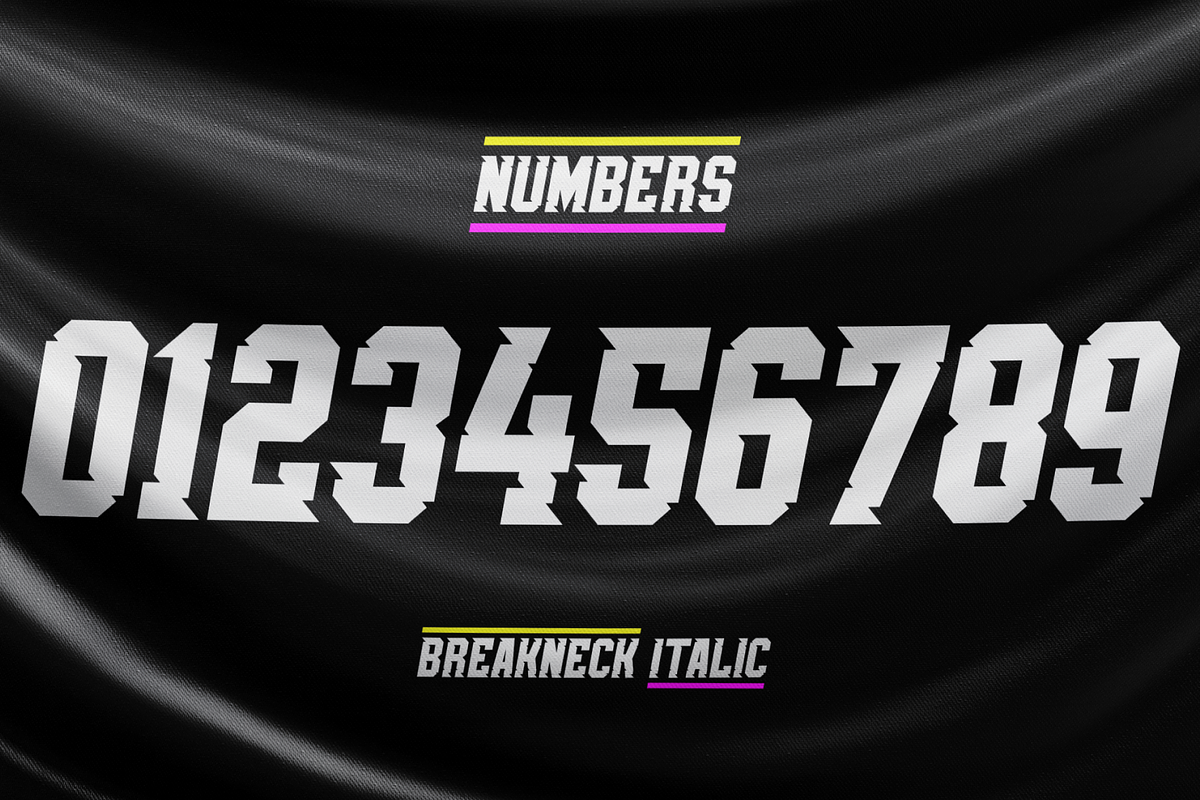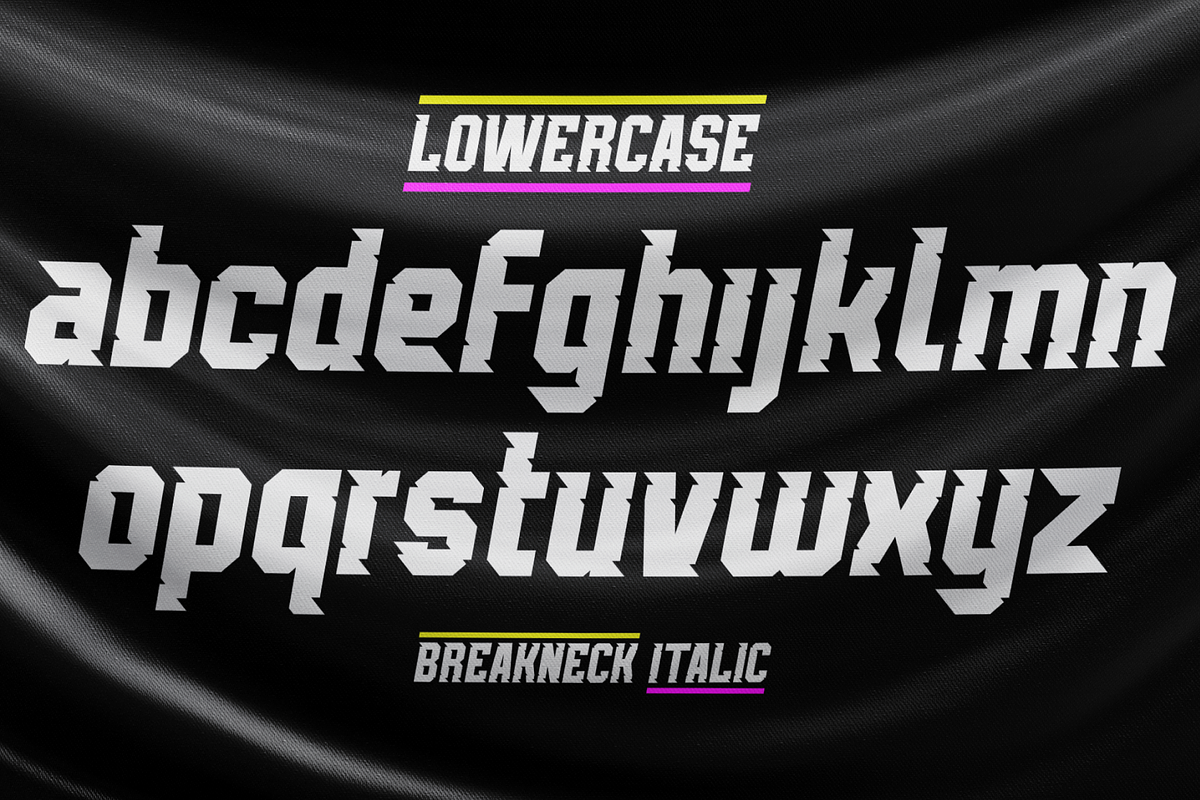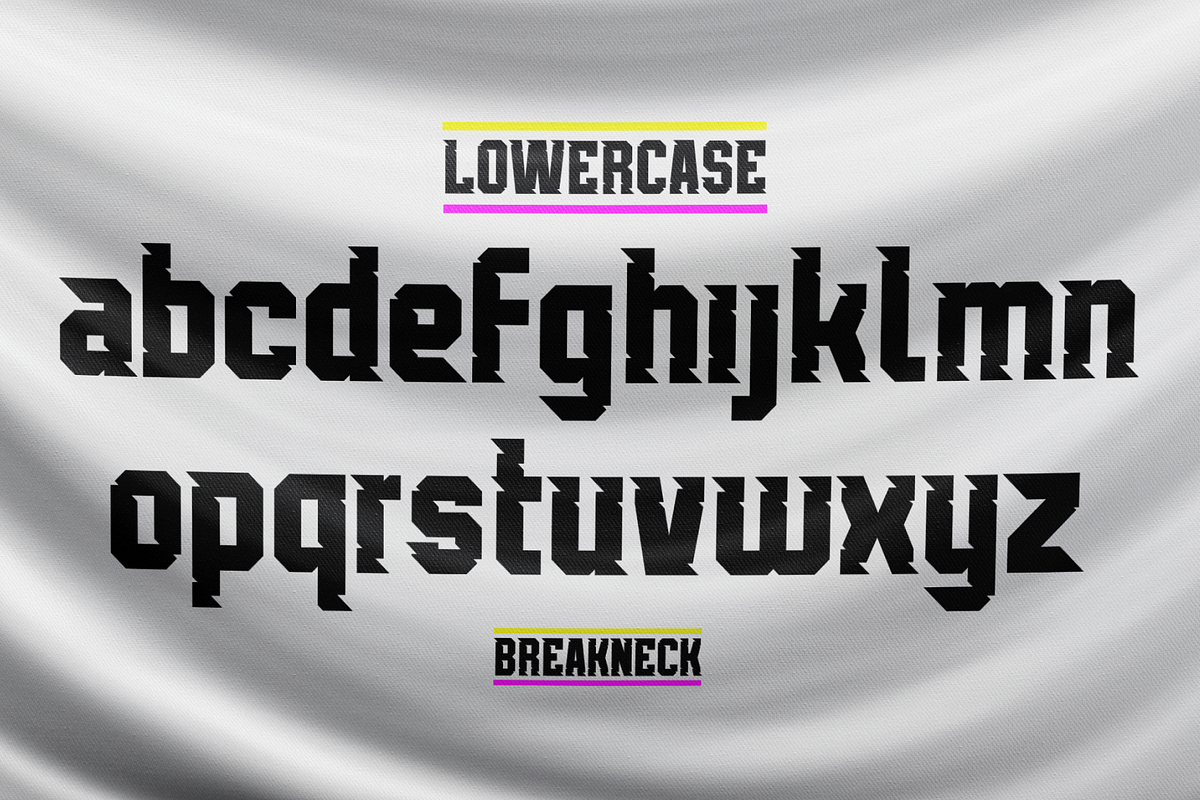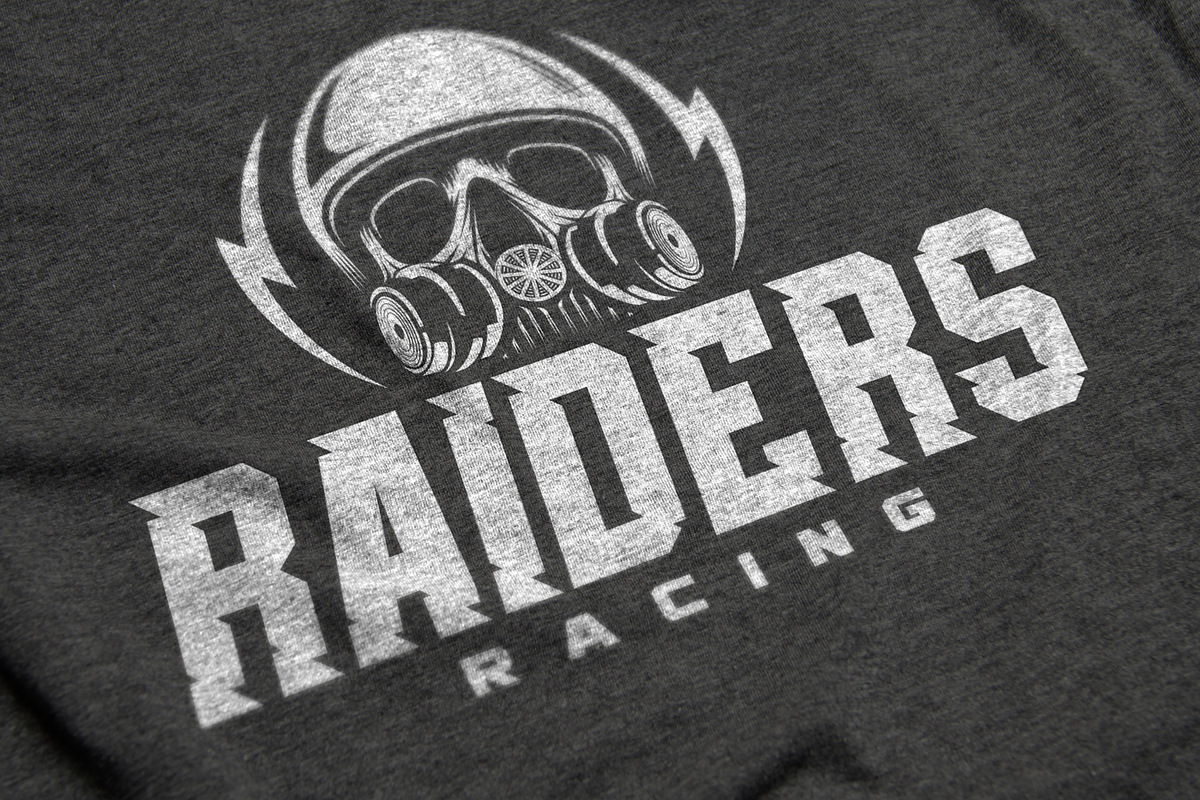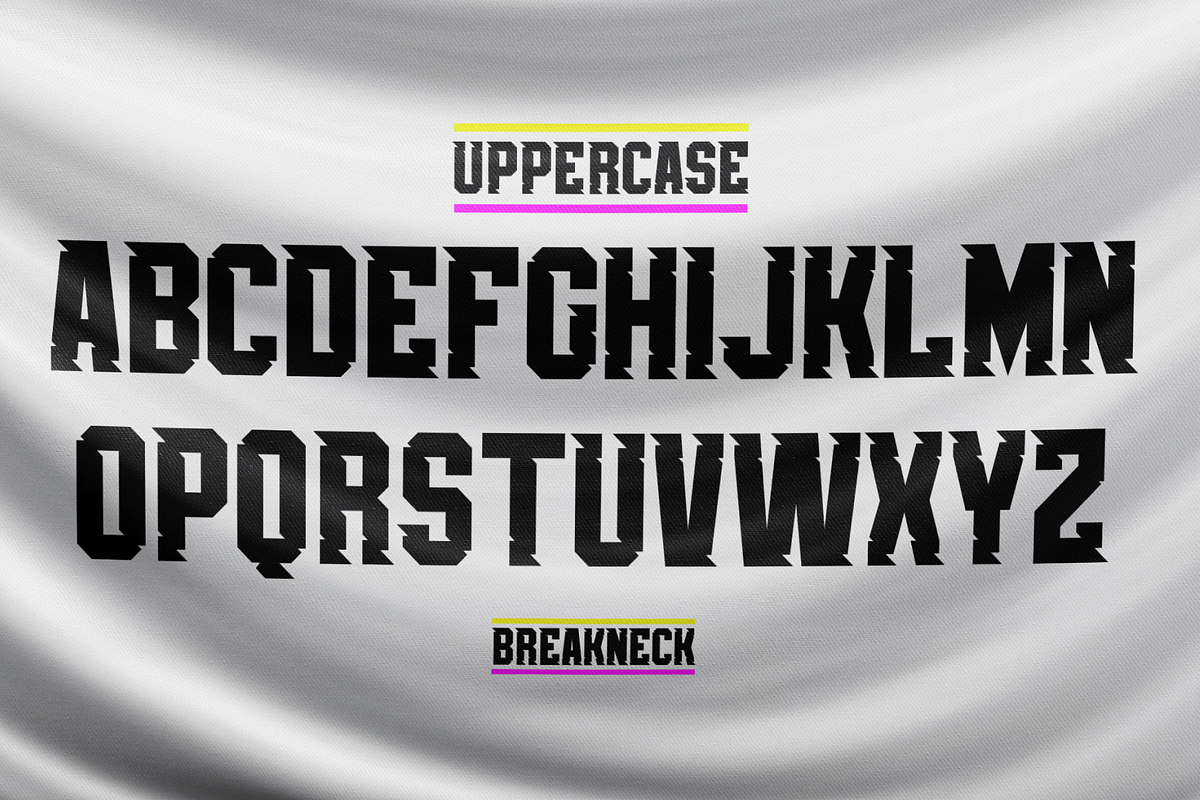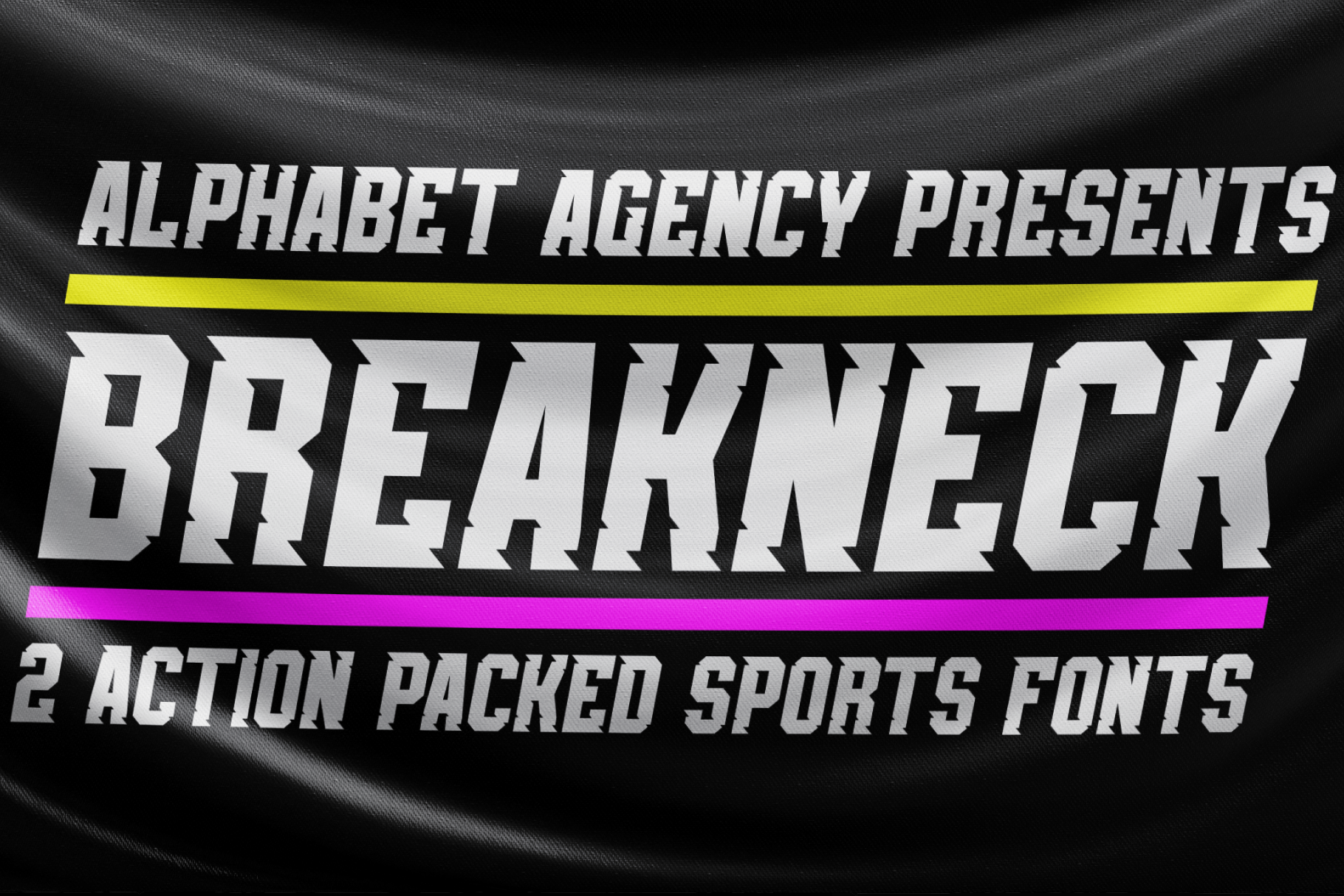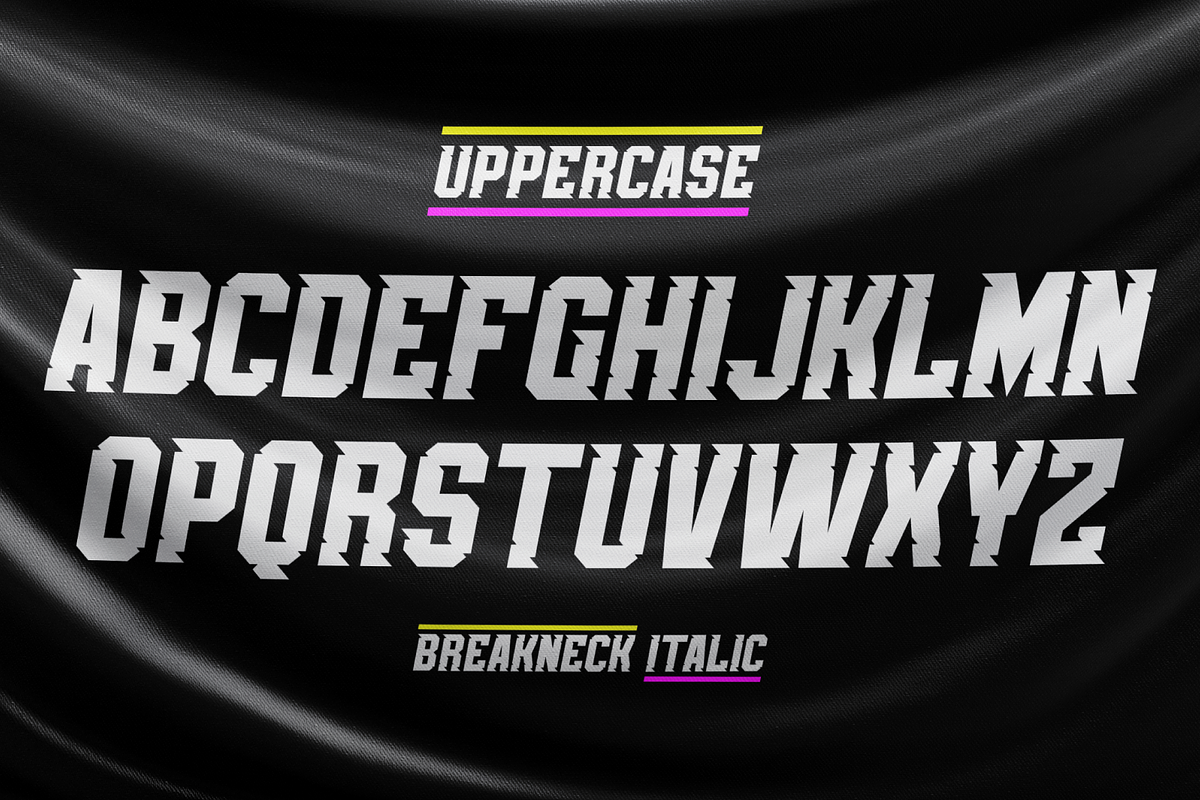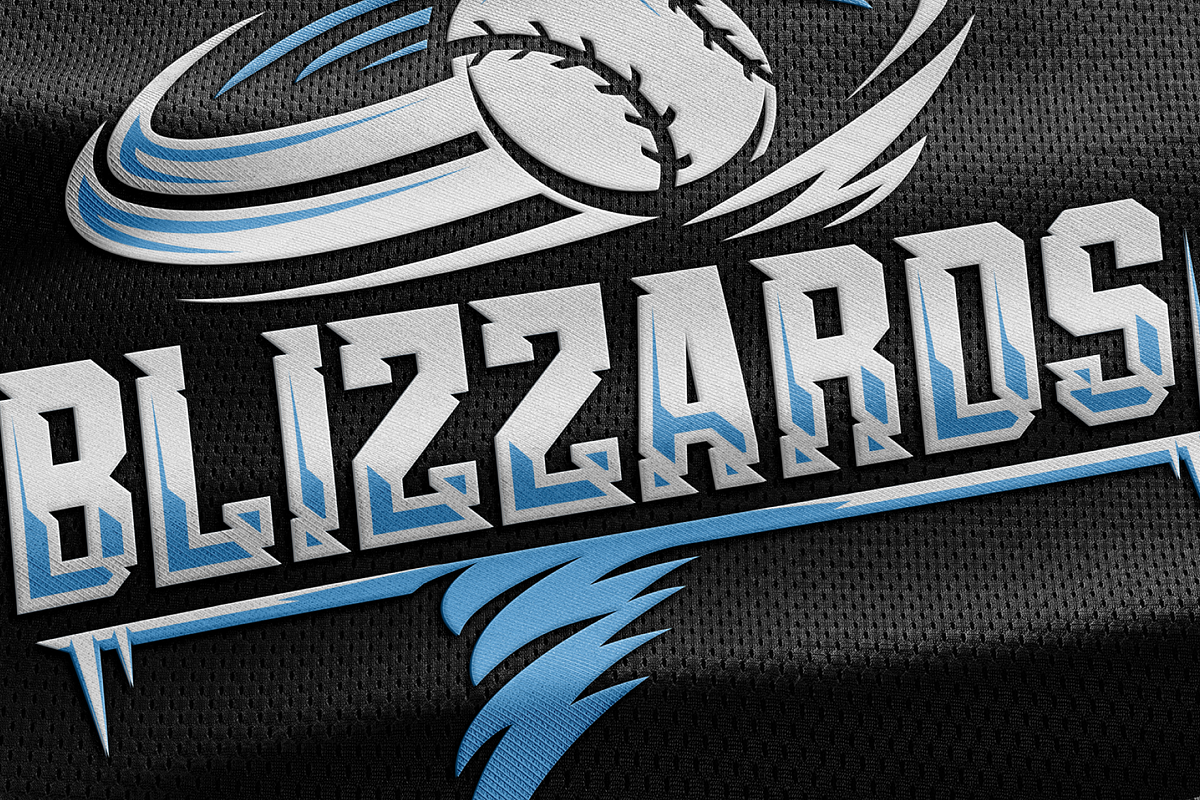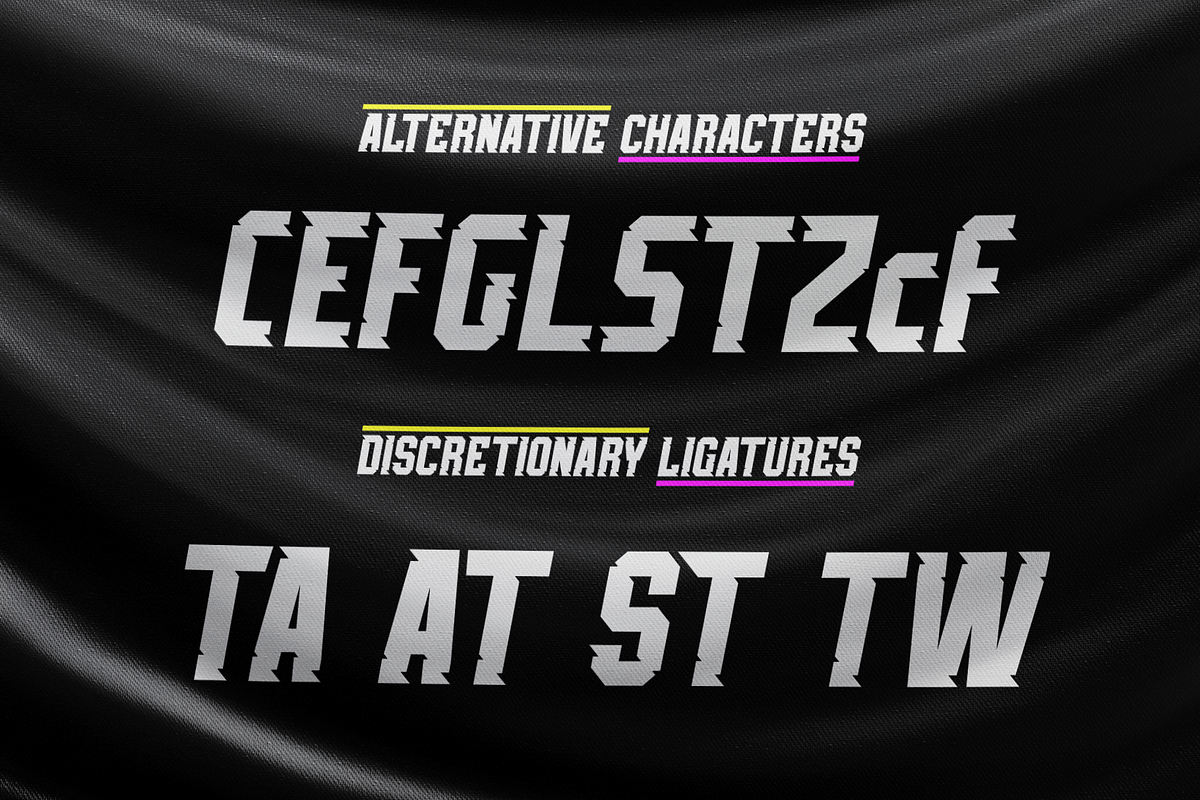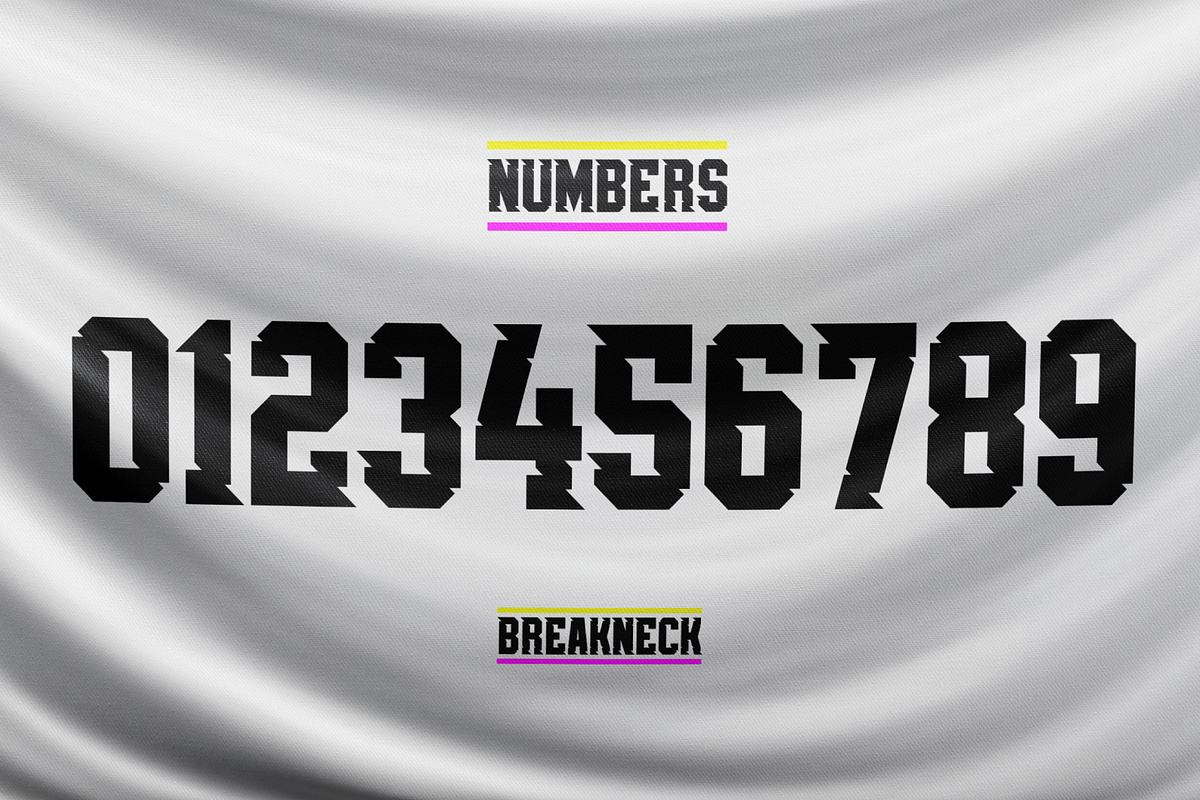
Breakneck Font Duo
Breakneck Font Duo includes Breakneck and Breakneck Italic fonts. The fonts are excellent for expressing motion; ideal for racing themes. The sharp angles combined with the bold sport style create the speed expression. Each font contains all basic Latin characters that includes uppercase, lowercase, numbers, punctuation plus much more (130+ characters).